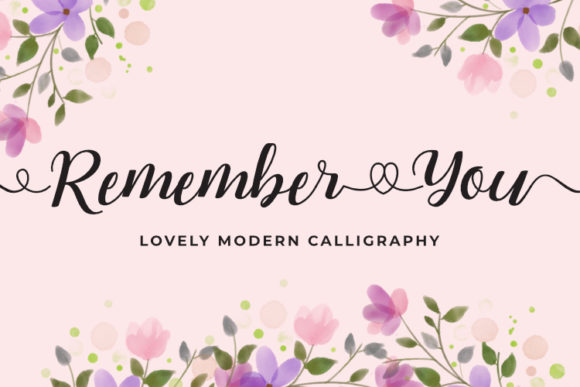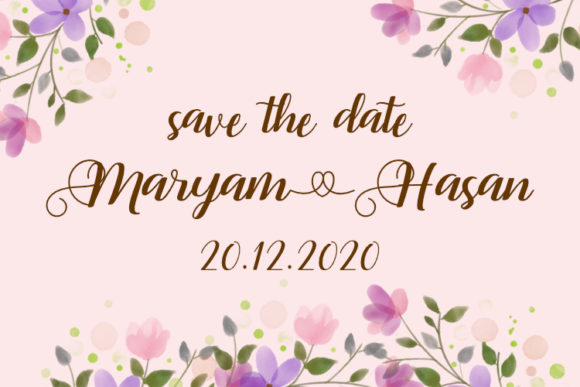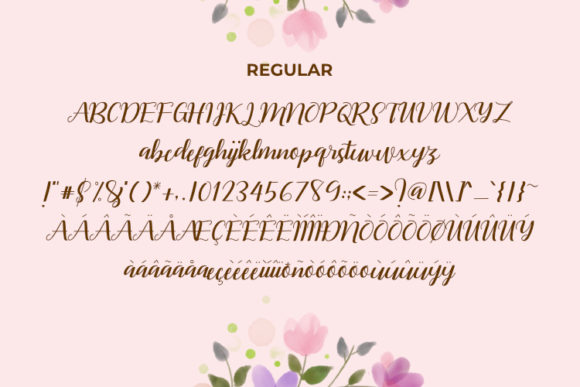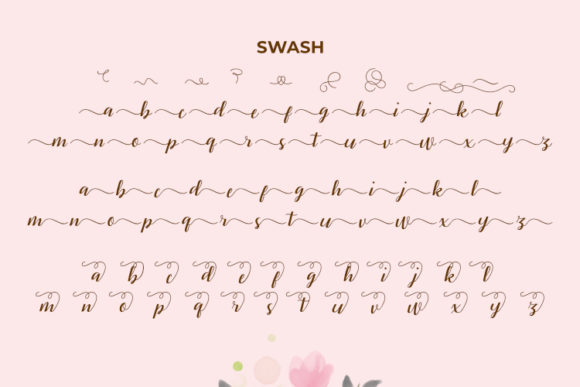
Remember You Font
About Remember You Font
Remember You is a sweet, soft hand-lettered handwritten font. The playful rounded characters make it the perfect font for creating stunning art.